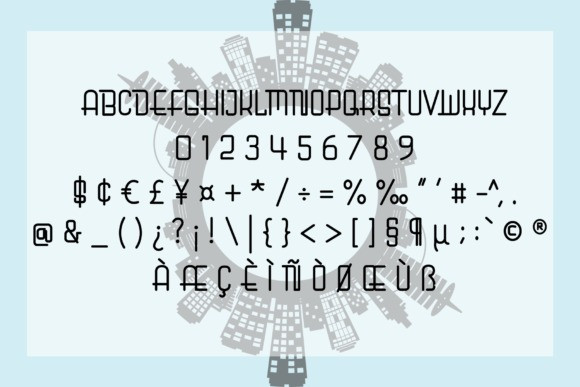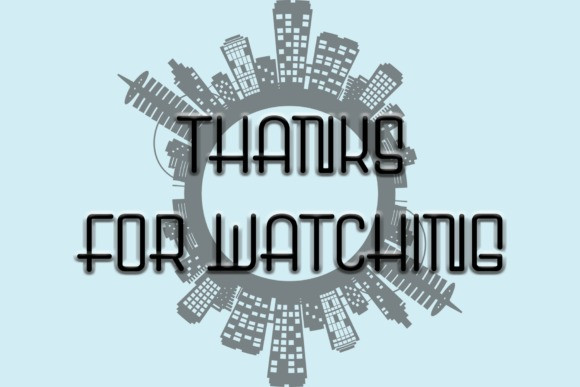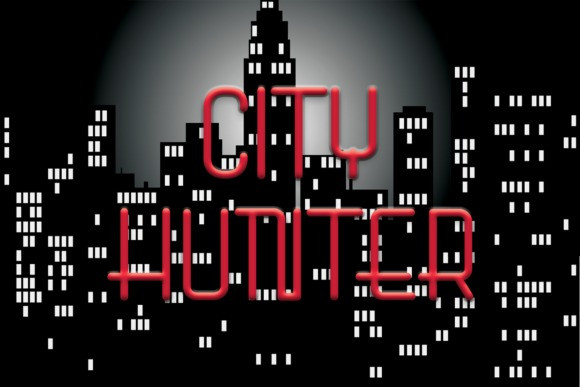
Greathfull Display Font
Greathfull is a beautiful handwritten font. It will elevate a wide range of design projects to the highest level, be it branding, headings, wedding designs, invitations, signatures, logos, labels, and much more!